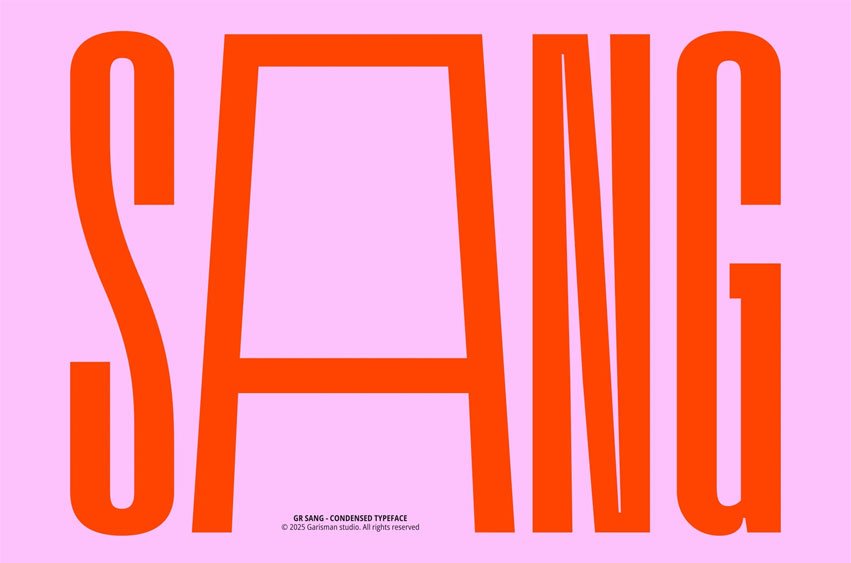
GR Sang Font is a condensed sans serif display typeface designed for sharp headlines and compact titles. With one regular style, it delivers tall, narrow letterforms that stay clean and readable when space is tight.
The design keeps the structure simple and contemporary, giving text a focused vertical rhythm that works well in editorial layouts, branding systems, and digital interfaces. GR Sang includes an extensive OpenType feature set: small capitals from capitals, contextual alternates, denominators, fractions, ordinals, stylistic alternates, scientific inferiors, stylistic sets, subscript, superscript, and a slashed zero